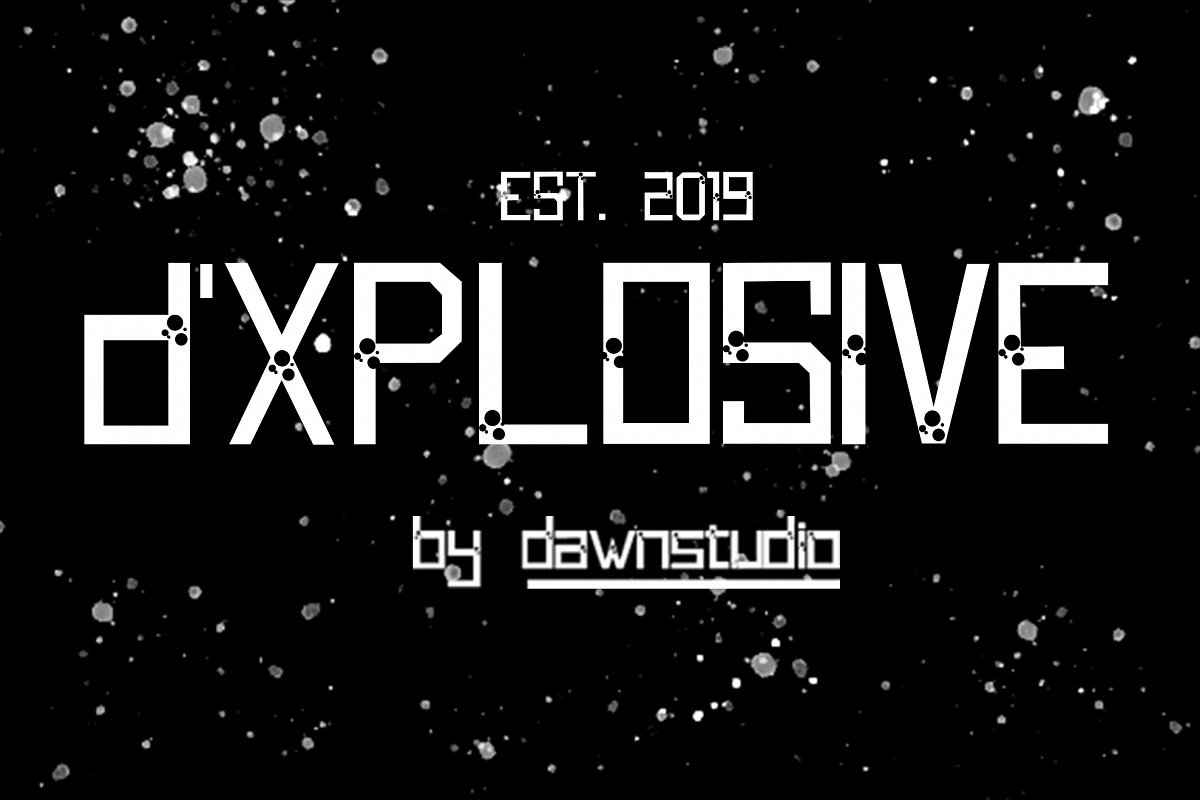
d'XPLOSIVE
d'XPLOSIVE is a display and sans serif font family. This font are includes Basic Latin, Multilingual, Numeral and Punctuation. It will be match for Title of Book, Logo, and many more.